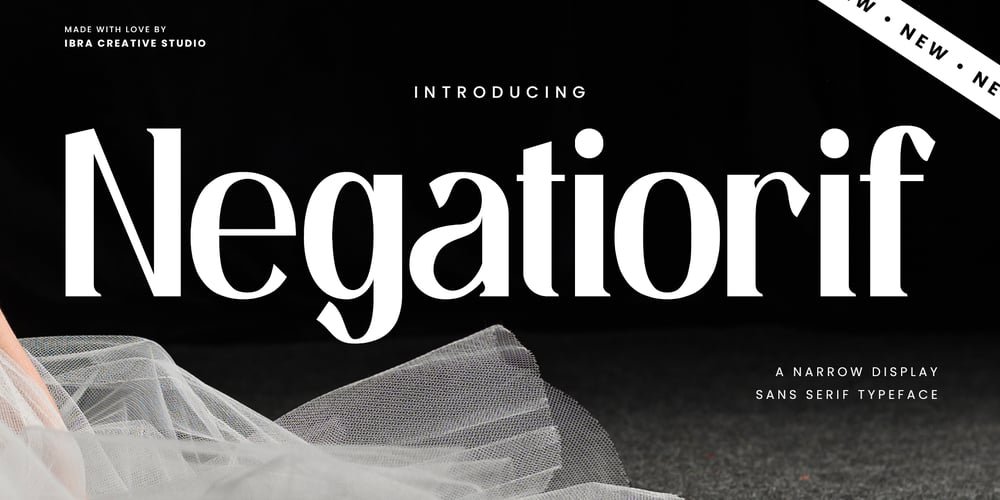
Negatiorif
Negatiorif font
Negatiorif Font Family was designed by Roisatul Azizah and published by IbraCreative. Negatiorif contains 1 styles and family package options. Negatiorif – A Narrow Display Sans Serif TypefaceNegatiorif, a narrow display sans serif typeface, epitomizes sophistication and modernity in its sleek design. The font’s slender proportions lend a distinctive and elegant touch to any project, making it an ideal choice for titles, headlines, and minimalist aesthetics. With clean lines and sharp angles, Negatiorif achieves a balance between contemporary refinement and readability. Its versatility shines in both digital and print mediums, commanding attention with its space-efficient characters and creating a visual impact that resonates with a sense of precision. Whether used for branding, editorial design, or creative displays, Negatiorif stands as a testament to the seamless fusion of style and functionality in the realm of narrow sans serif typography.Negatiorif is perfect for branding projects, logo, wedding designs, social media posts, advertisements, product packaging, product designs, label, photography, watermark, invitation, stationery, game, fashion and any projects.Fonts include multilingual support for; Afrikaans, Albanian, Czech, Danish, Dutch, English, Estonian, Finnish, French, German, Hungarian, Italian, Latvian, Lithuanian, Norwegian, Polish, Portuguese, Slovak, Slovenian, Spanish, Swedish.